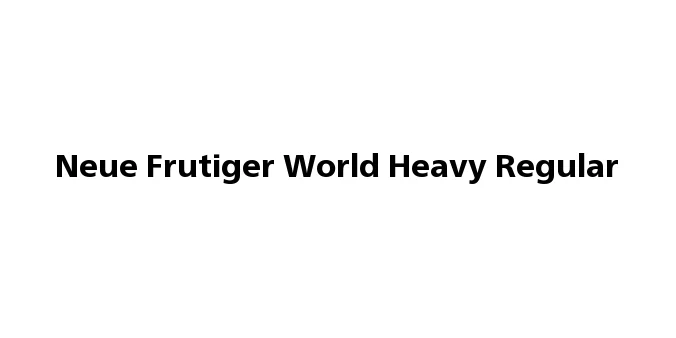
Neue Frutiger World Heavy Regular
Designed by Adrian Frutiger, Akira Kobayashi
| Category | Humanist Sans-Serif |
| Designer | Adrian Frutiger, Akira Kobayashi |
Neue Frutiger World is an expansive evolution of the legendary Frutiger typeface, originally conceived by Adrian Frutiger for the Paris-Charles de Gaulle Airport in the 1970s. This specific 'World' iteration, meticulously refined by Akira Kobayashi and the Monotype studio, was engineered to support over 150 languages including Greek, Cyrillic, Hebrew, Arabic, and Thai, ensuring a consistent visual identity across global markets and diverse scripts.
The Heavy Regular weight offers a robust and authoritative presence while preserving the signature humanist warmth and open apertures that make the family famous for its extreme legibility. It is widely considered a gold standard for wayfinding systems, corporate branding, and digital interfaces where clarity is paramount, providing a sturdy yet sophisticated typographic voice for both print and high-resolution screens.
Neue Frutiger World Heavy Regular Best Uses
Ideal for airports, transit systems, and large-scale public wayfinding due to its superior legibility.
Perfect for global brands requiring a unified typographic look across multiple linguistic regions.
High legibility makes the Heavy weight suitable for impactful headlines and bold interface elements.
Excellent for posters and marketing materials that require a strong, professional, and clear message.